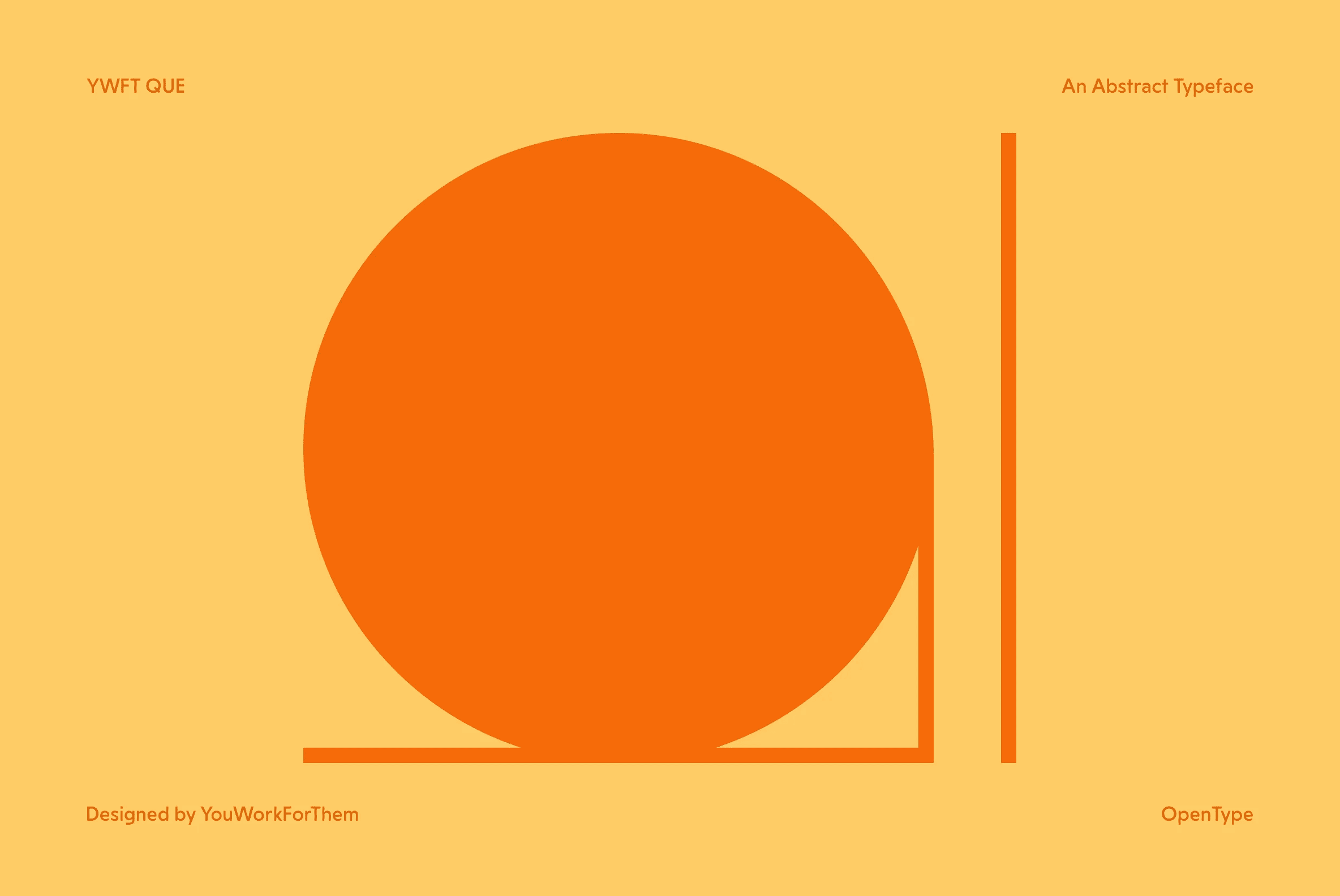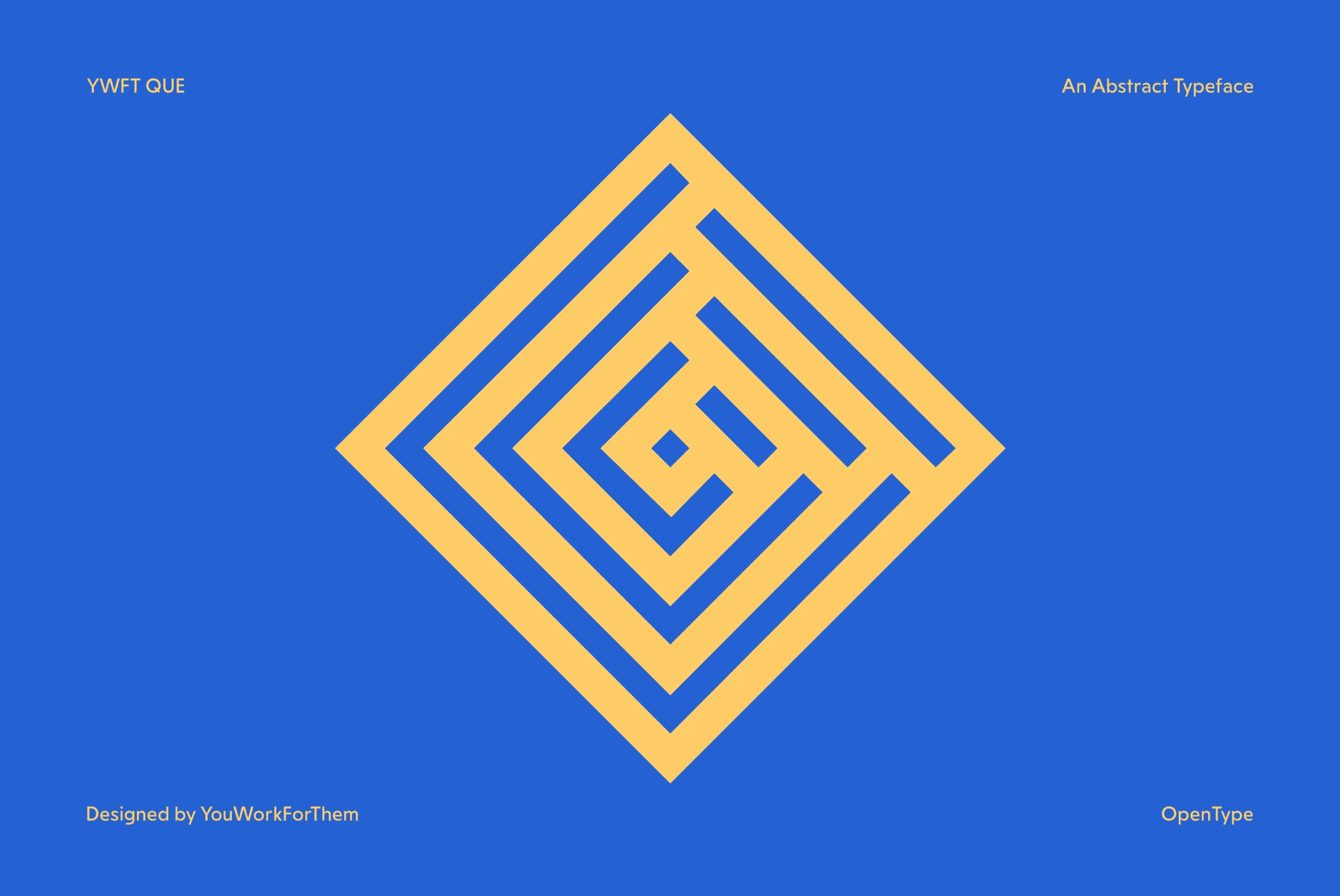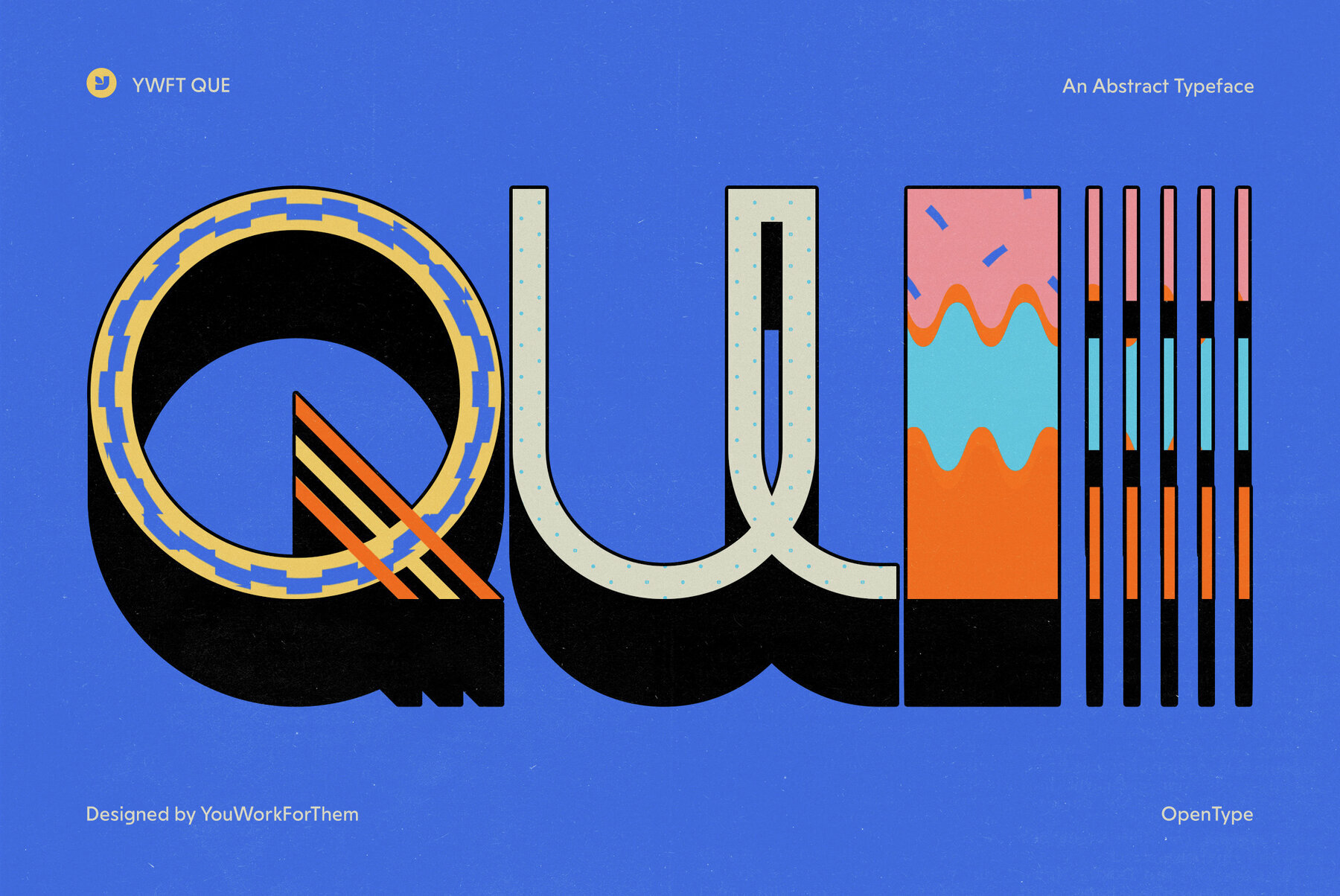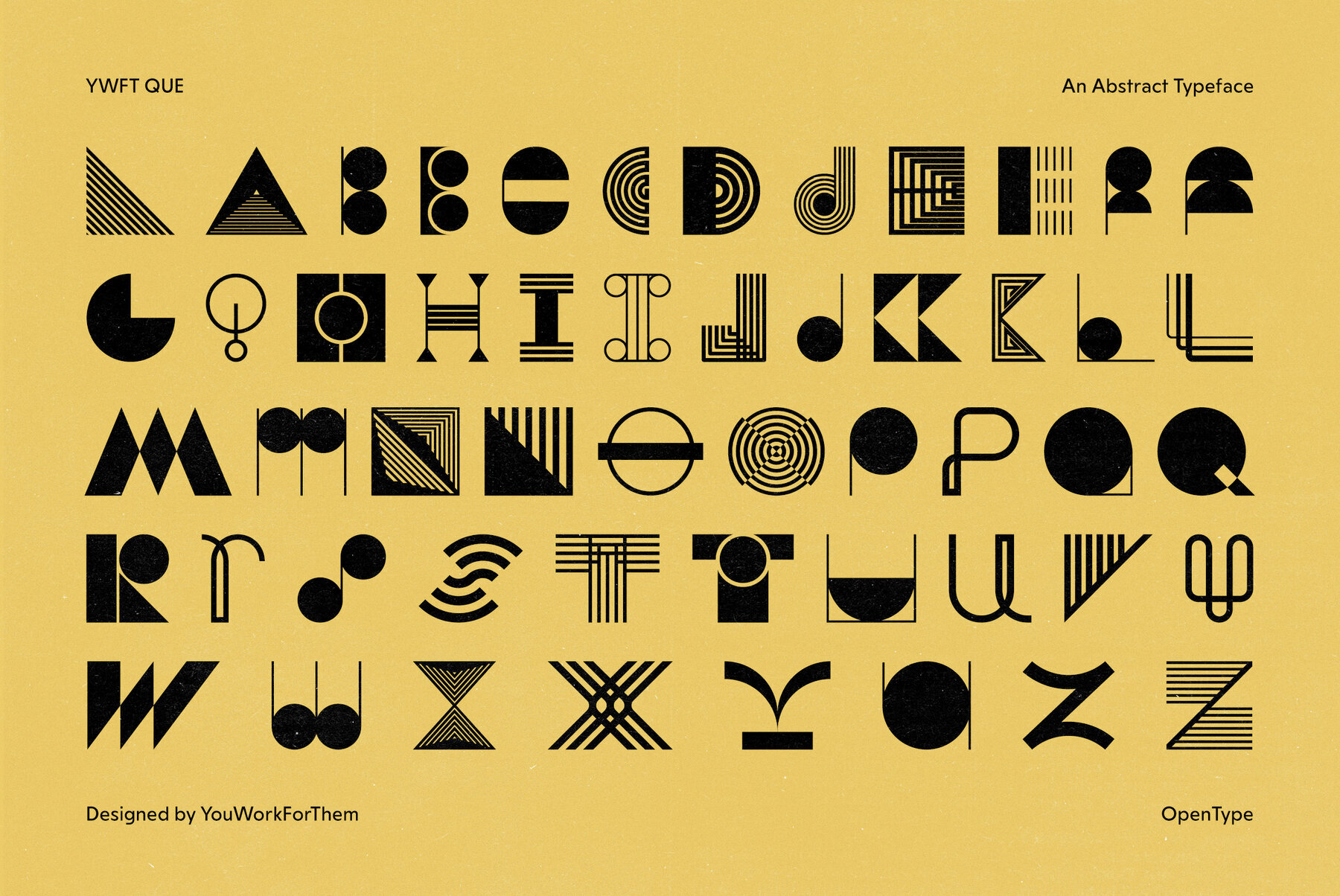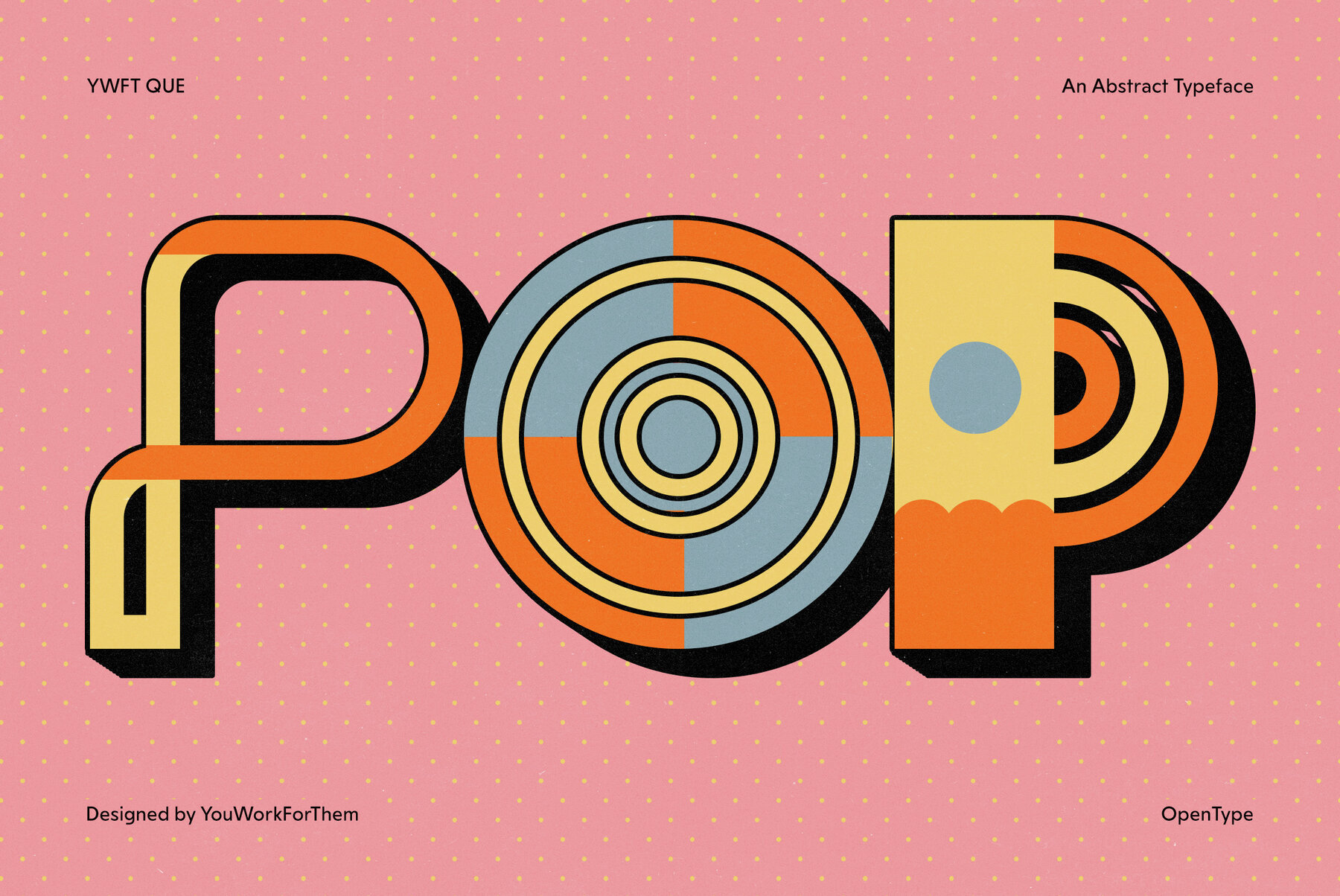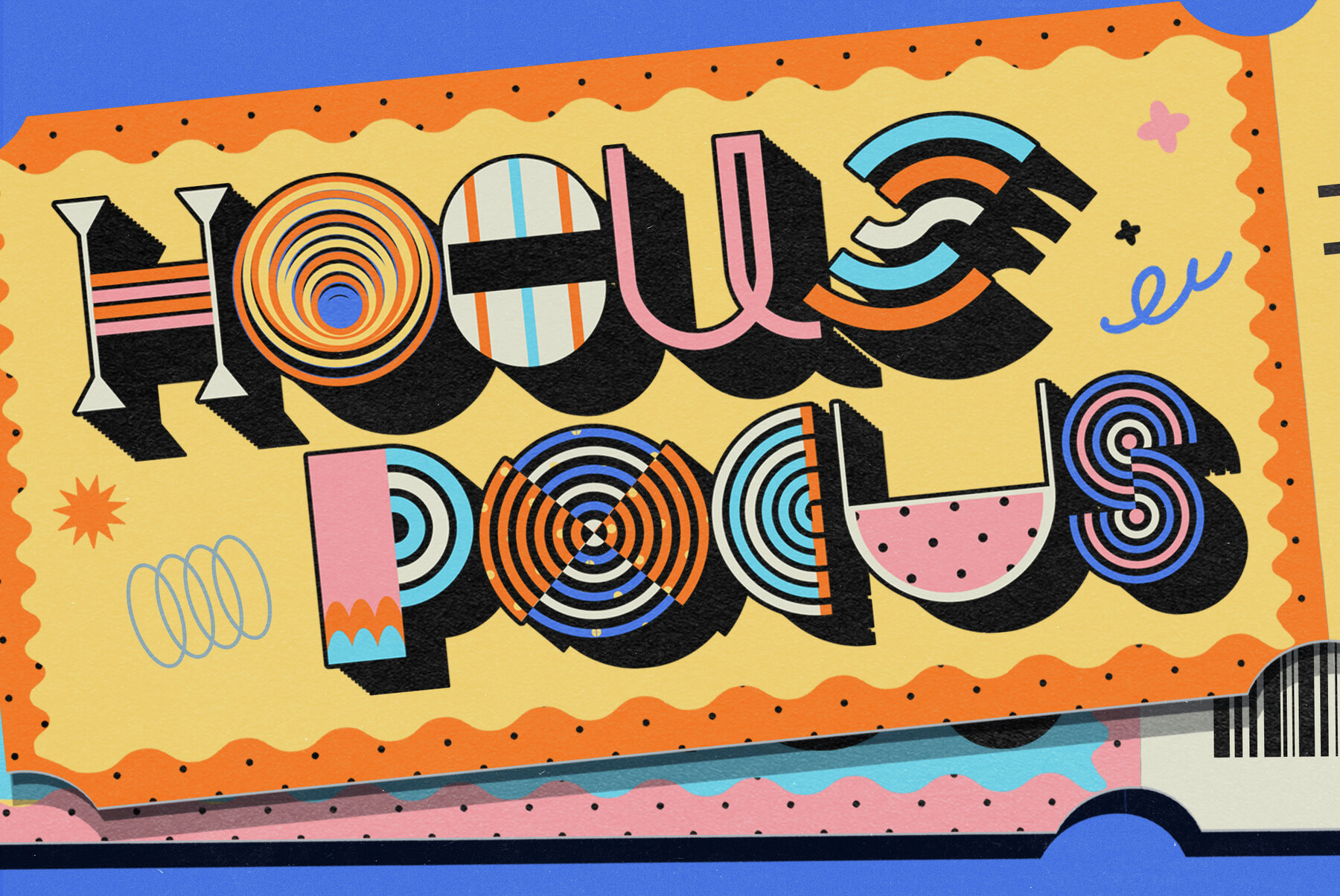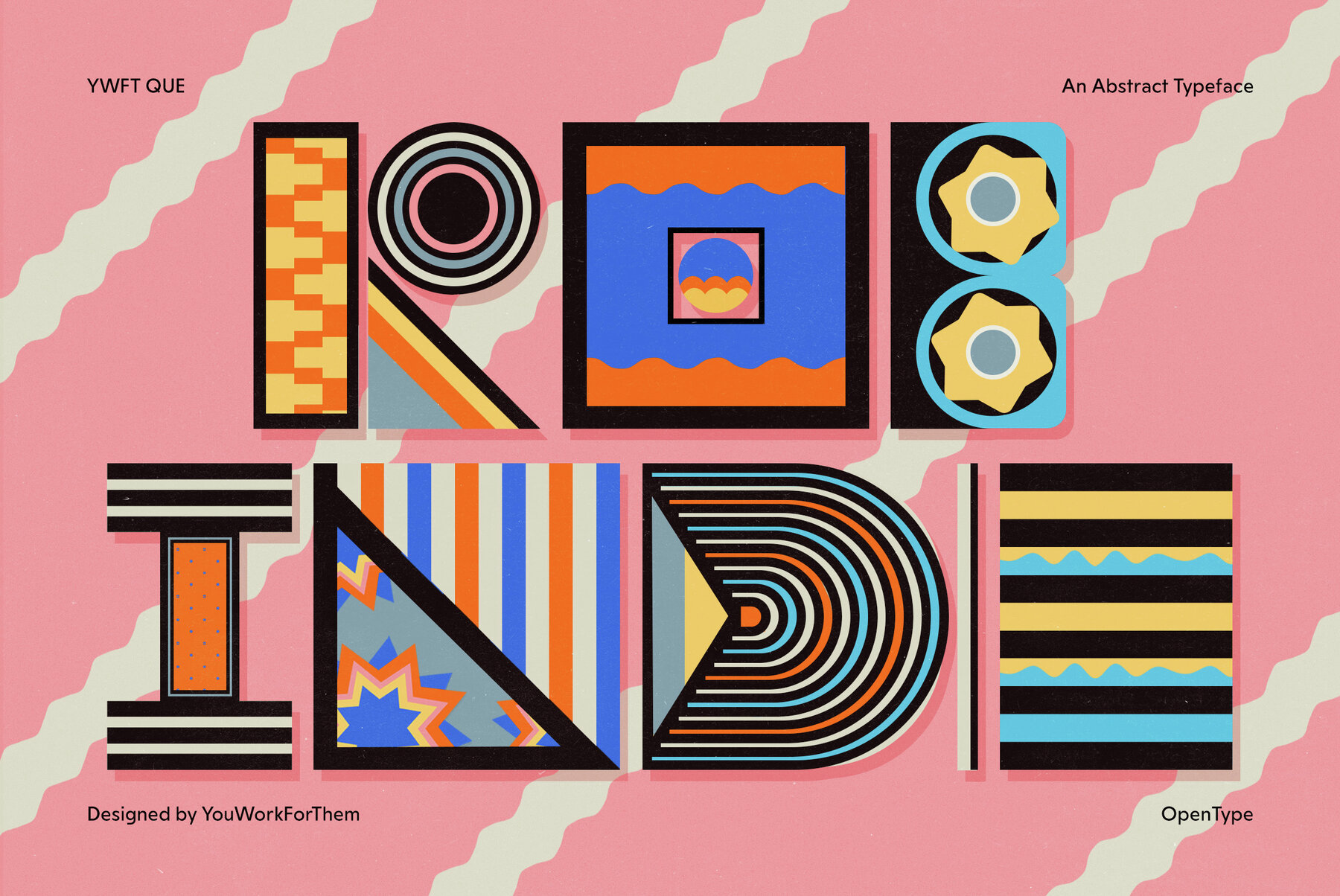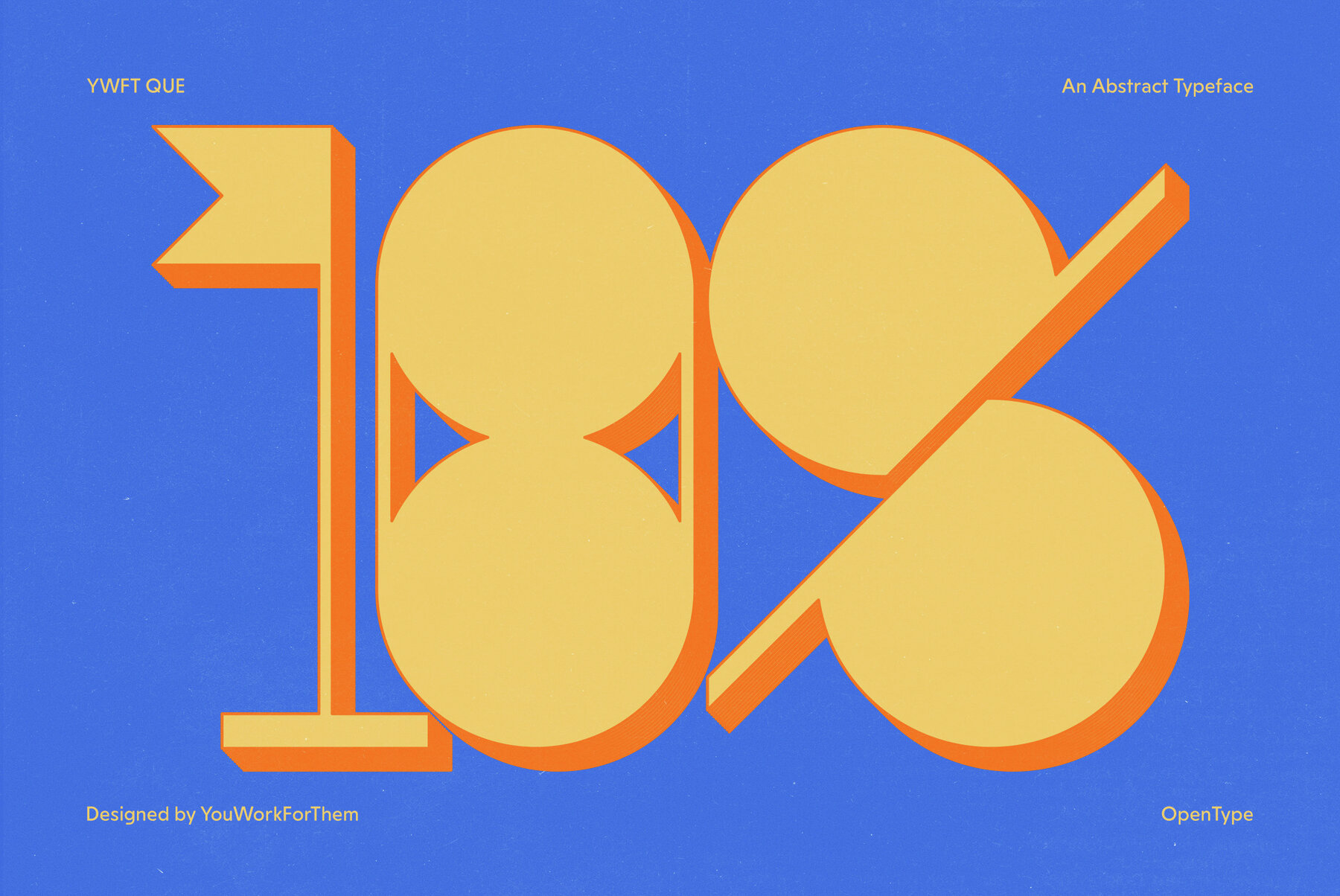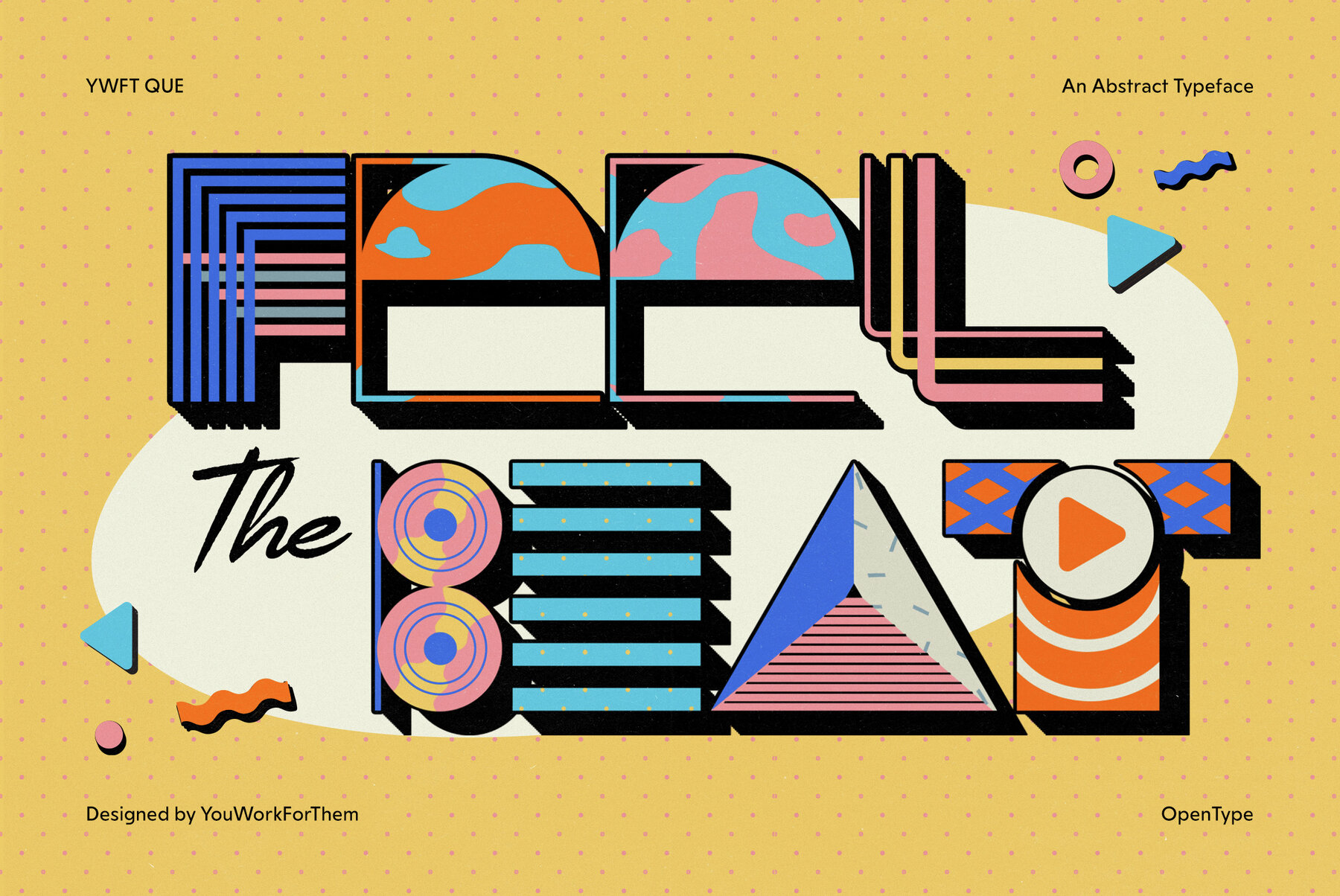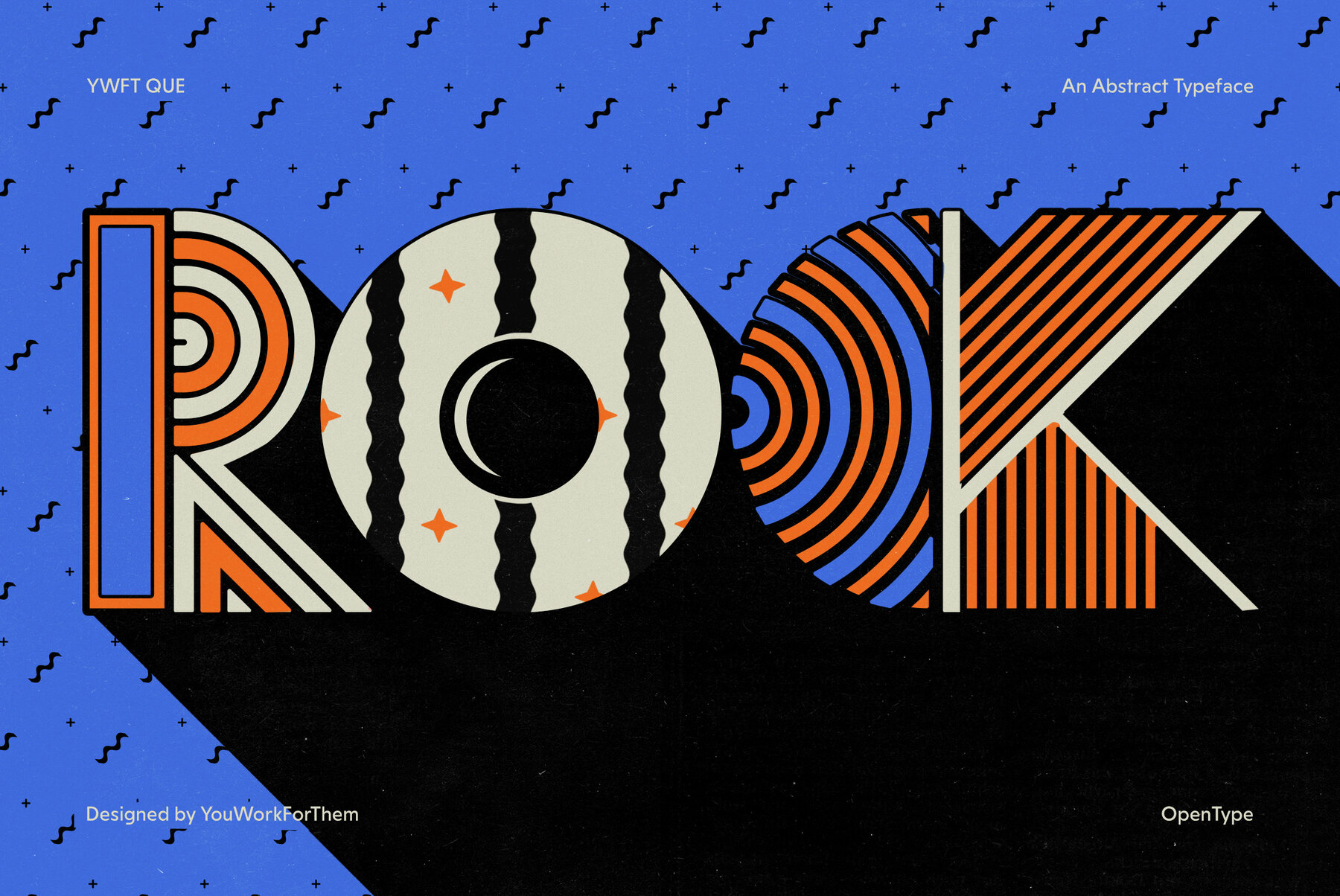
YWFT QUE
It has been said that a strong typeface is made stronger when it is applied to a thoughtfully considered composition. Helvetica, perhaps the strongest of all typefaces, even starred in its own film. But to every thing, there is a season, and we here at YWFT feel that for every beautiful, perfect Helvetica movie starlet, there is a twisted, long-haired, misfit smoking in the bathroom. And so we introduce you to YWFT QUE.
YWFT QUE is a display font that follows a new design mantra: "Conservatively Absurd." It was developed to be the anti-Helvetica; to send a middle finger to legibility. It snarls at Times New Roman and dropkicks "the norm" out da building. YWFT QUE journeys into the unknown, where sometimes letters look nothing like they should, and kerning has a mind of its own. YWFT QUE will conquer any poster project, sex up any website and take your motion work straight to the top of the World Tango Championships.
Simply put, it follows no rules. Why sometimes, it's even impossible to read.
YWFT QUE was originally drawn as the handset ELSE (2009), designed by YouWorkForThem.